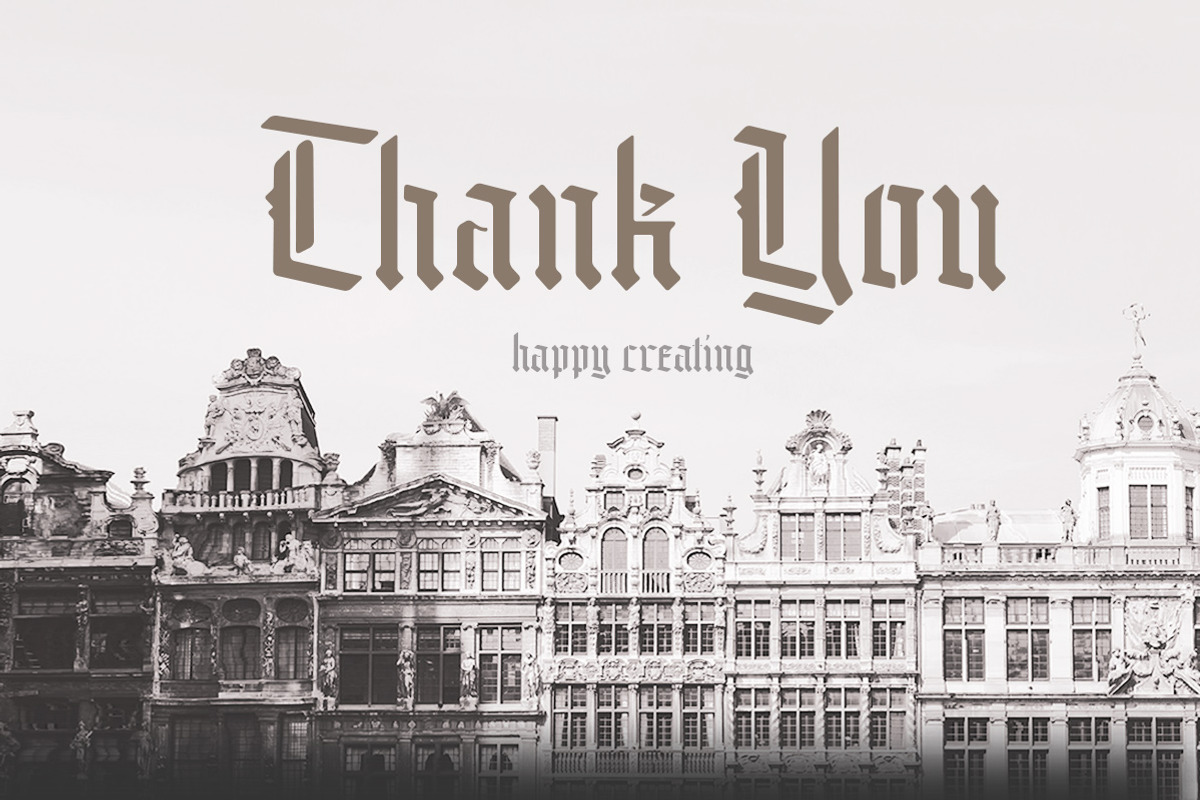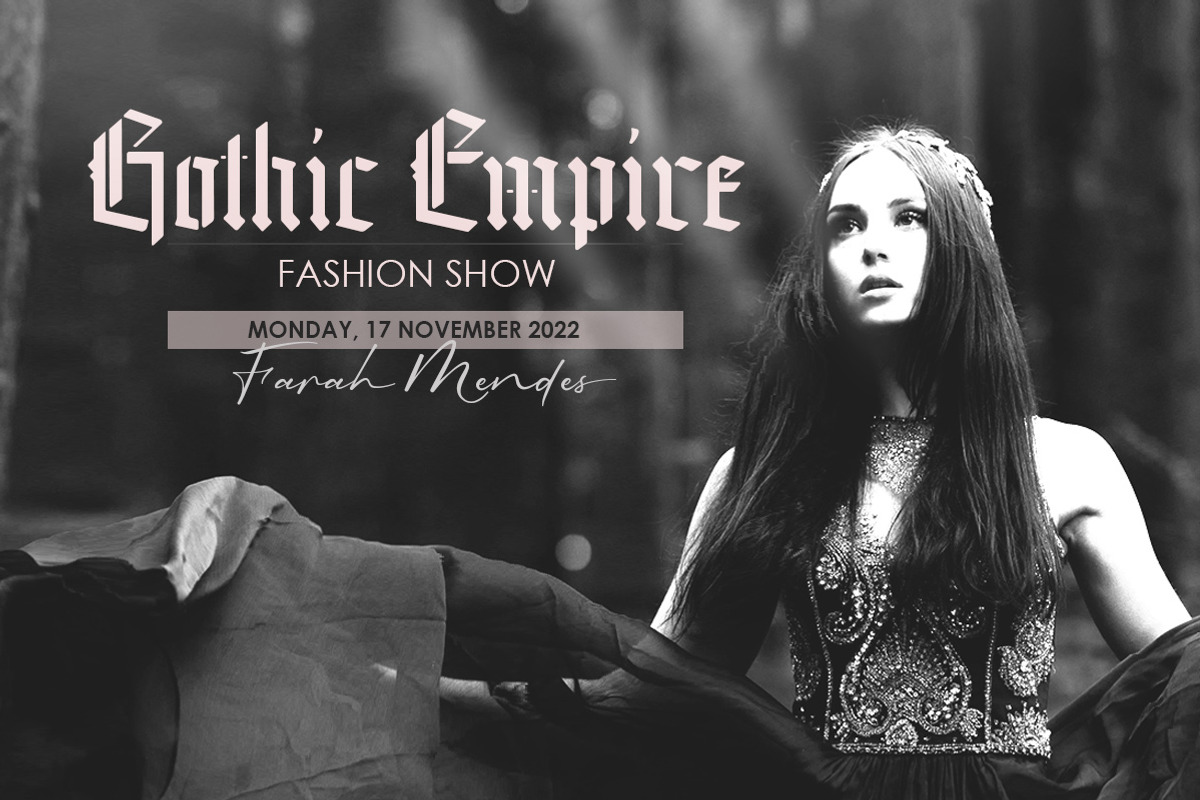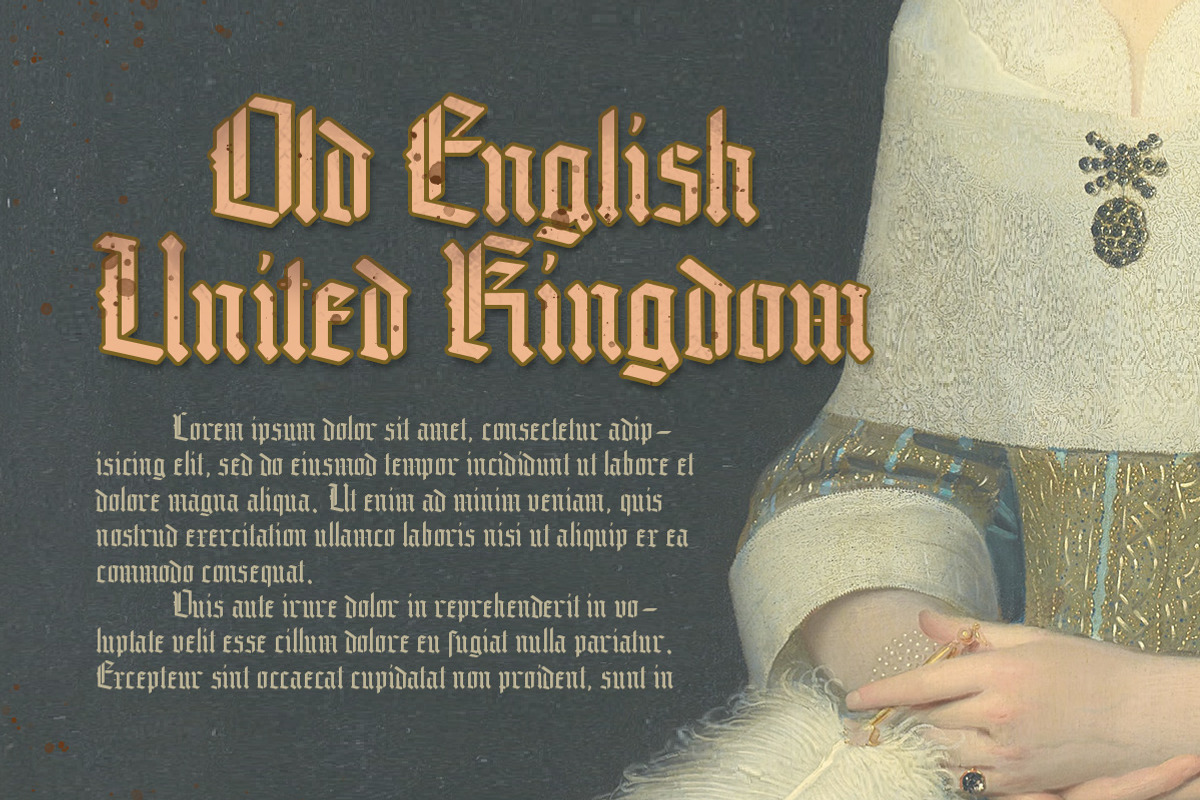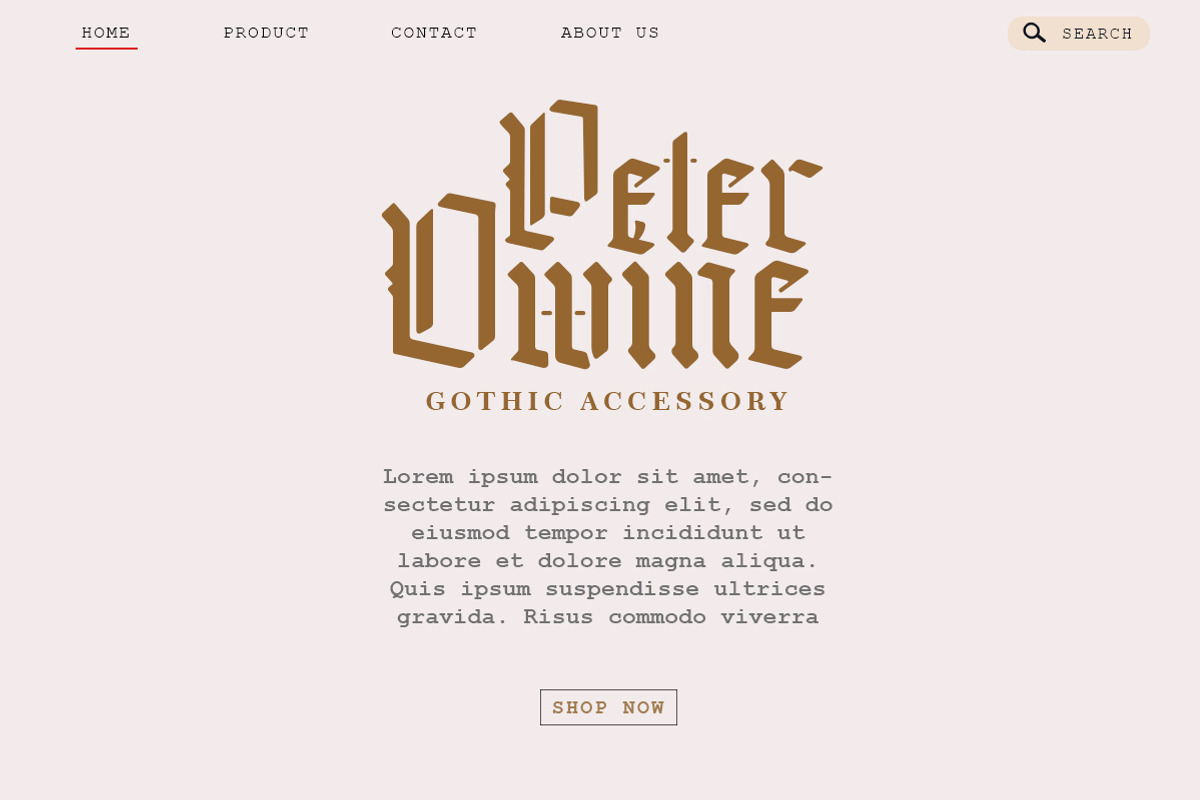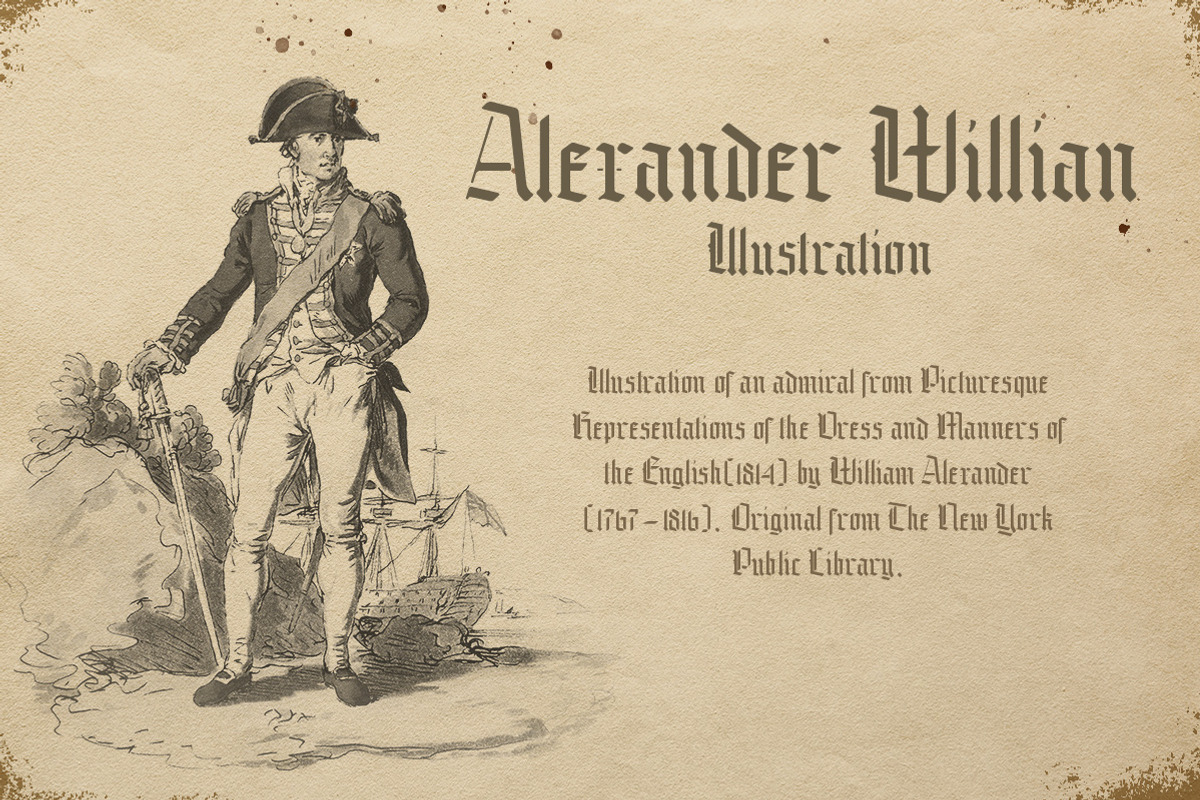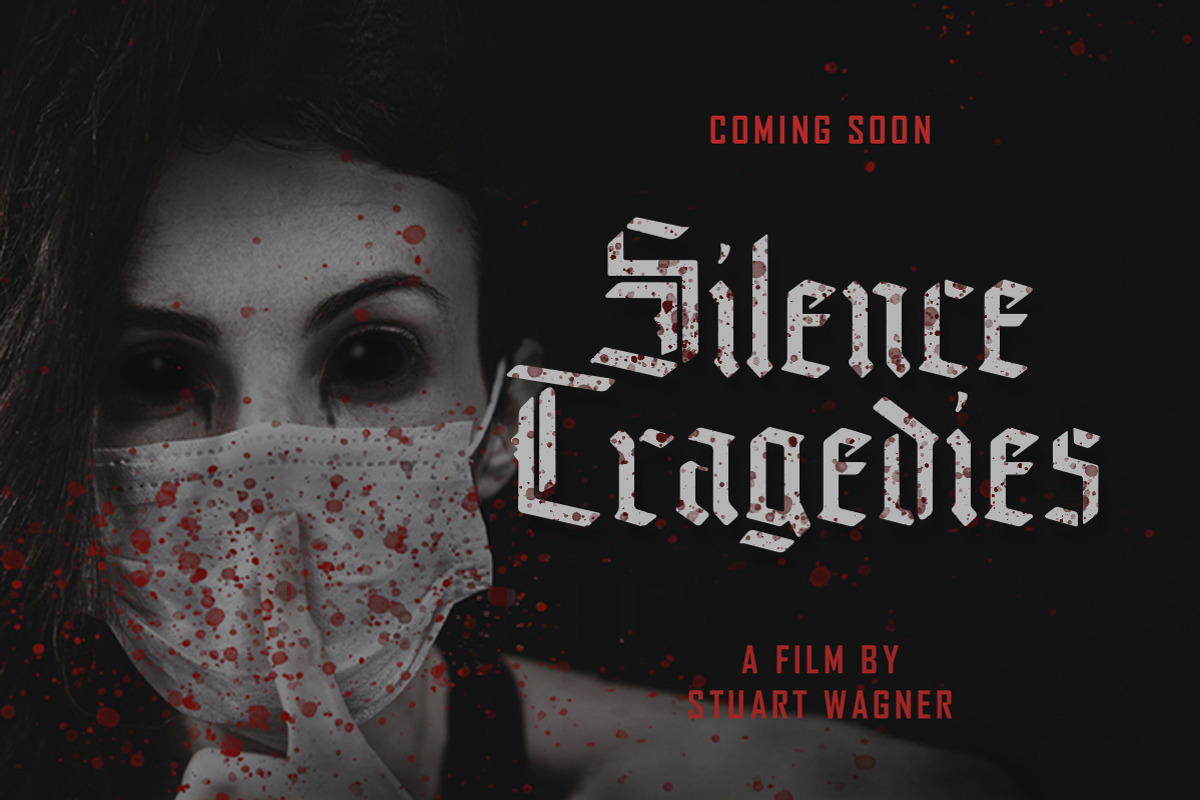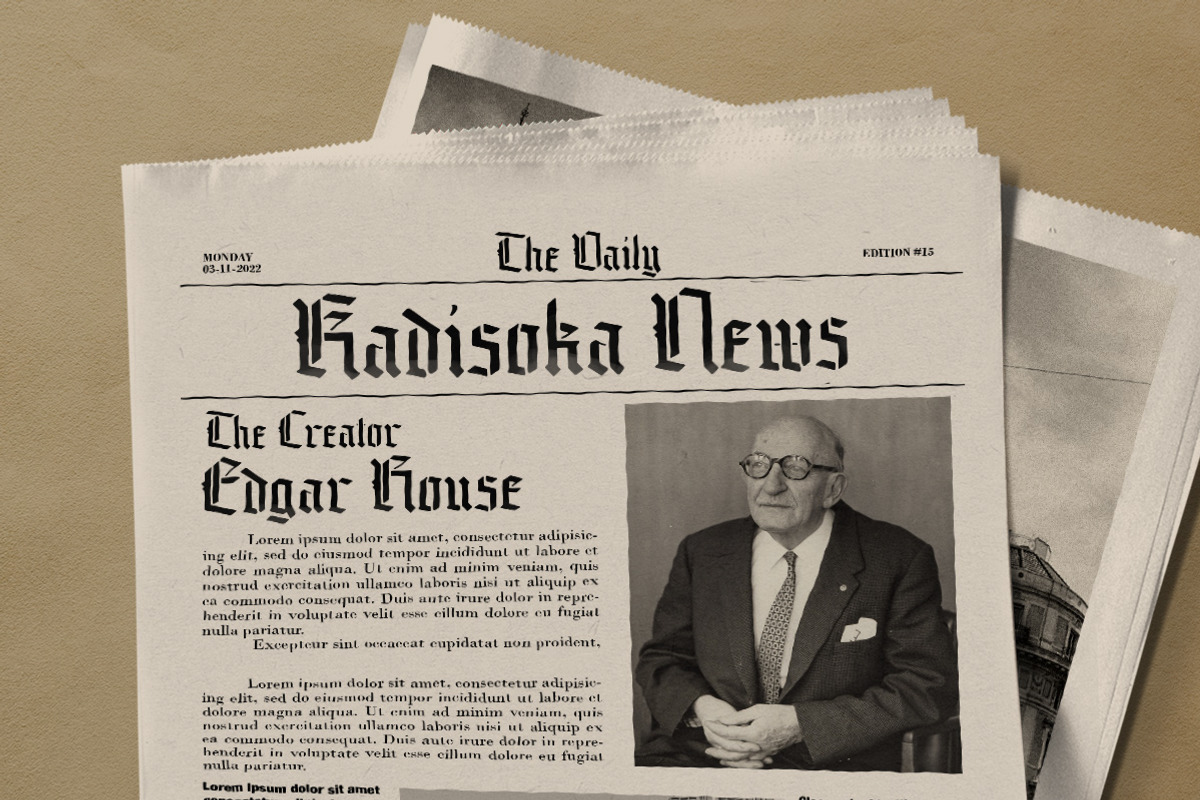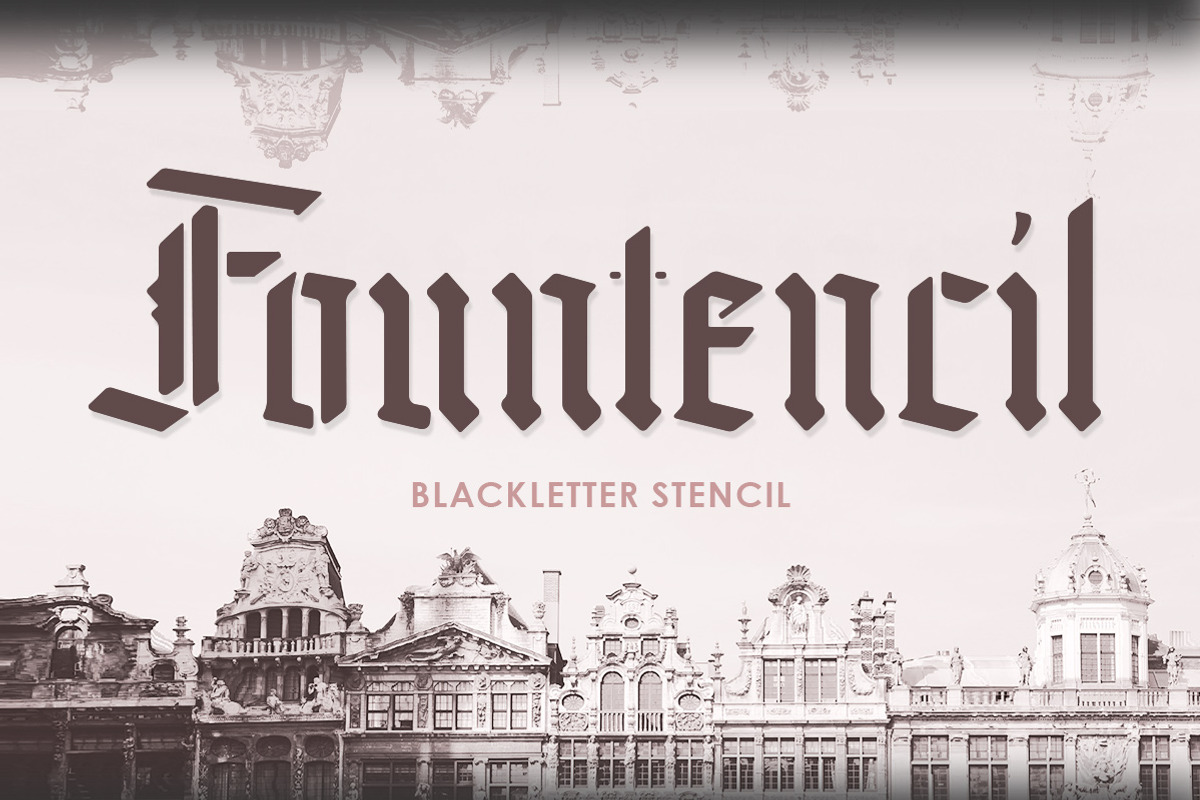
Fountencil - Blackletter Stencil
Introducing, Fountencil - A blackletter stencil typeface. This type of font perfectly made to be applied especially in logo, and the other various formal forms such as Logo, Clothing, Fashion, Headline, or any type of advertising purpose.